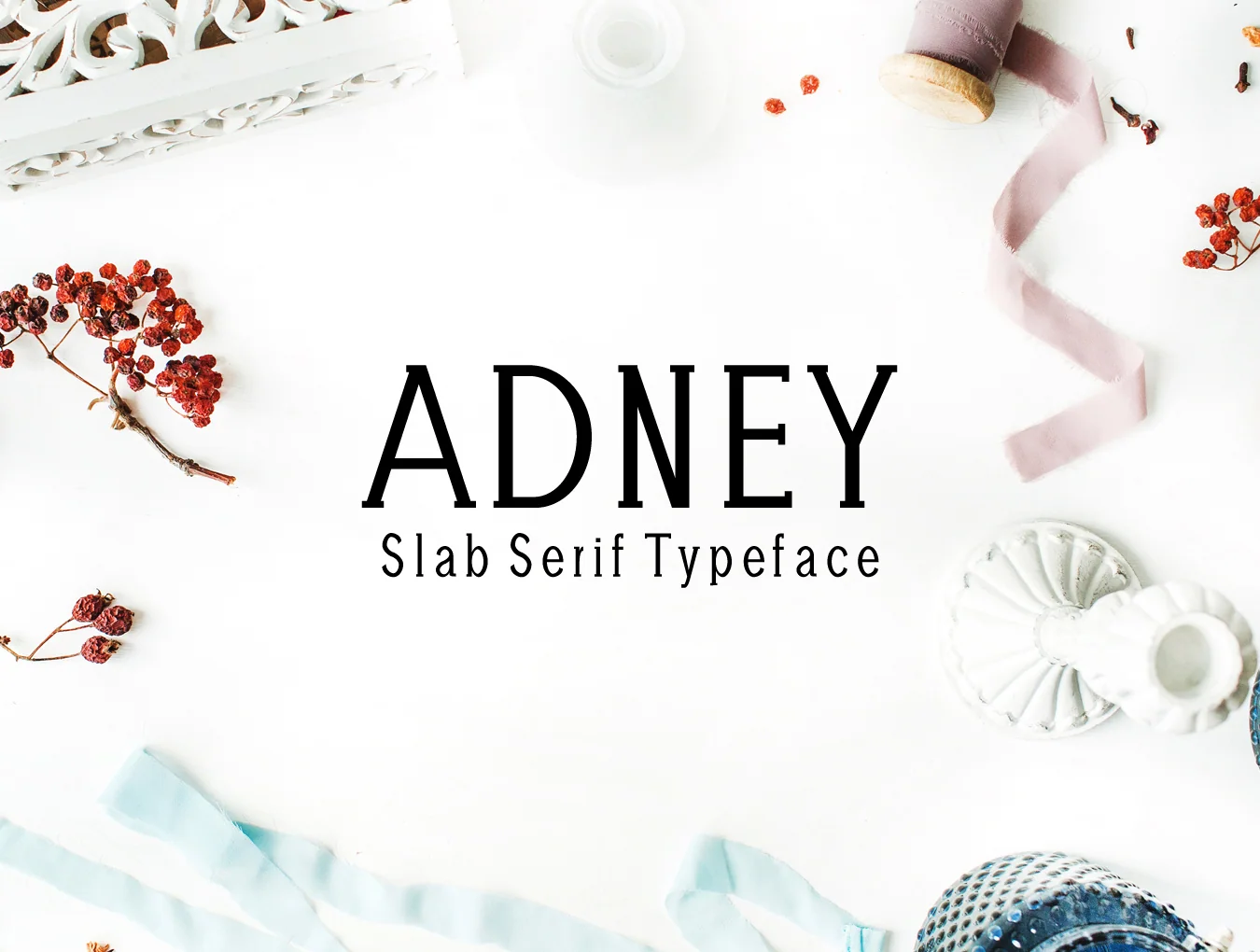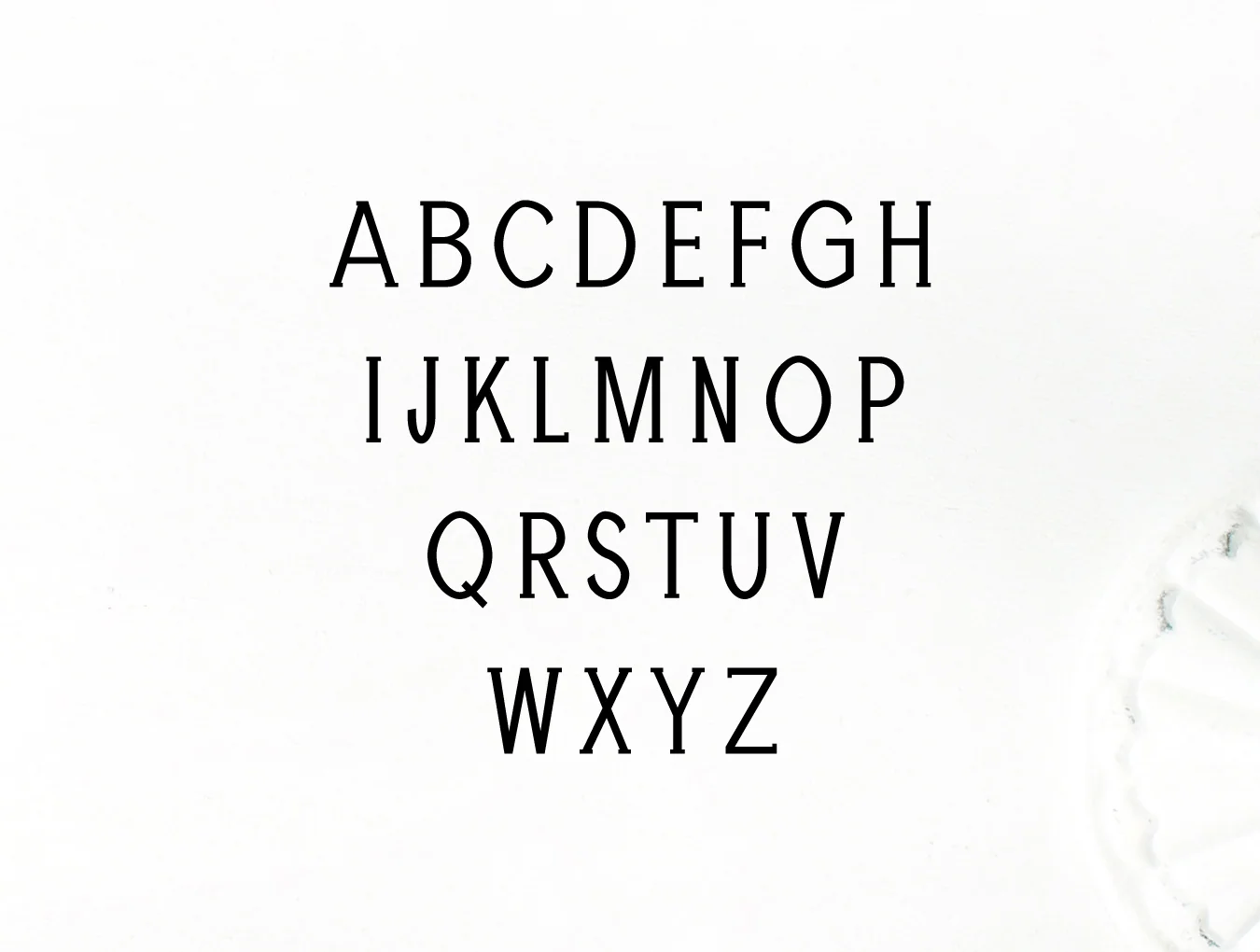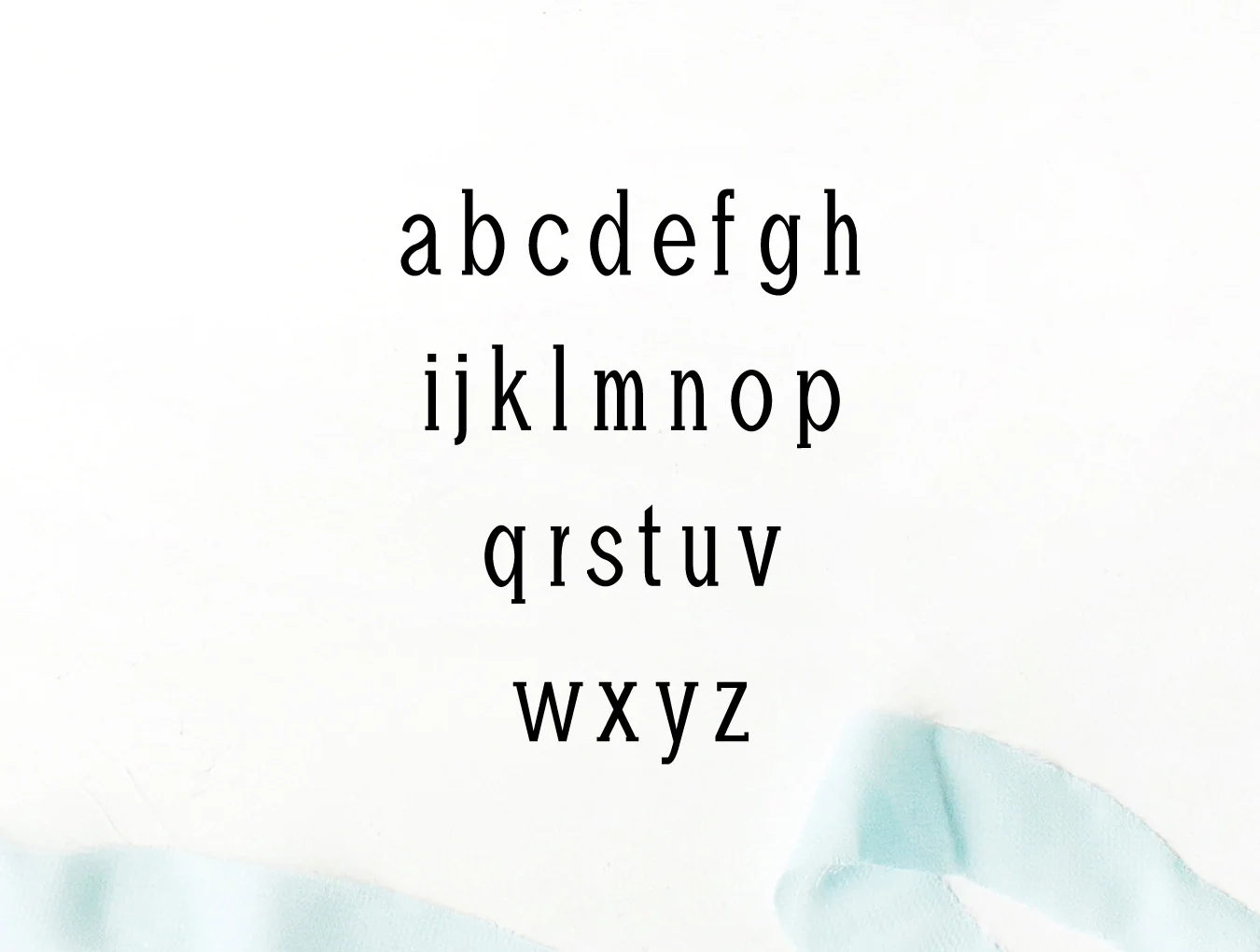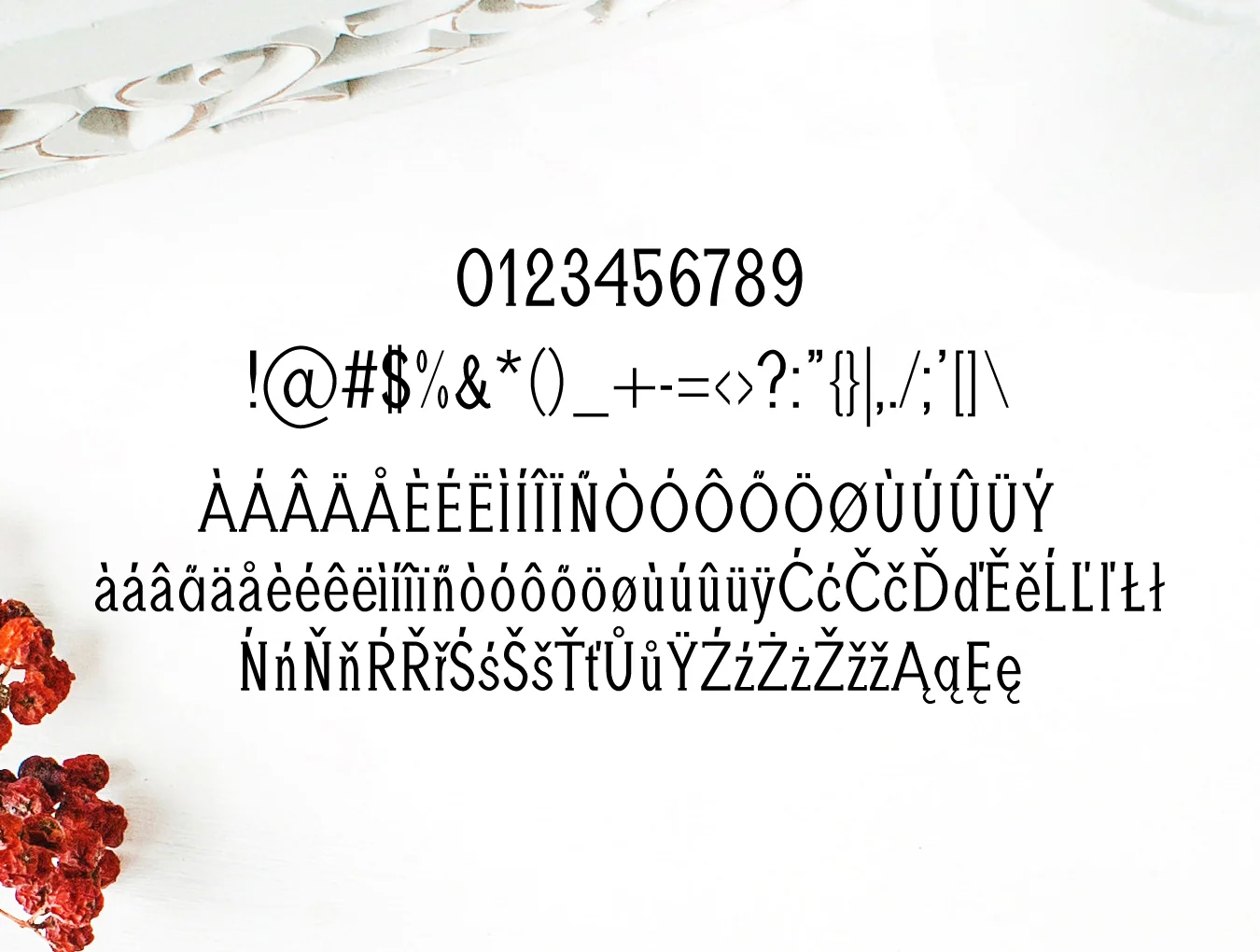
Adney Slab Serif Typeface
Family bundle for the Adney Slab Serif 3 font
Includes 294 glyphs
Regular and Thin styles
Adney Slab Serif Typeface includes 3 weights and works well for creative display designs. This distinctive slab serif font gives words a stylish feel, ideal for modern clean layouts, logos, headlines, banners, templates, and more. Use all caps with wide spacing for elegance, or mix upper and lowercase for a timeless look.